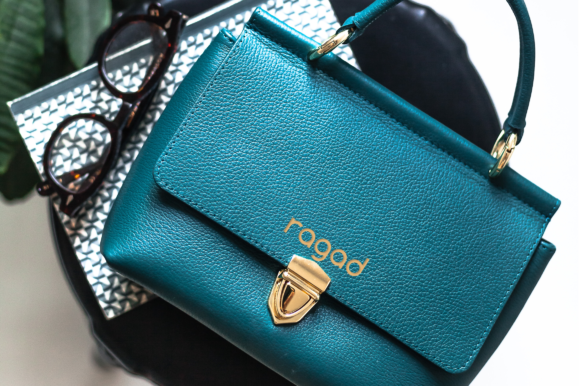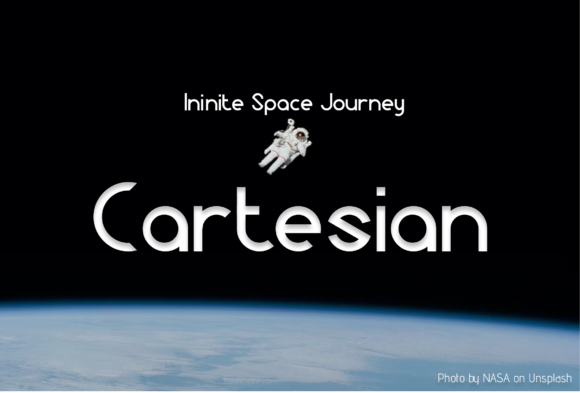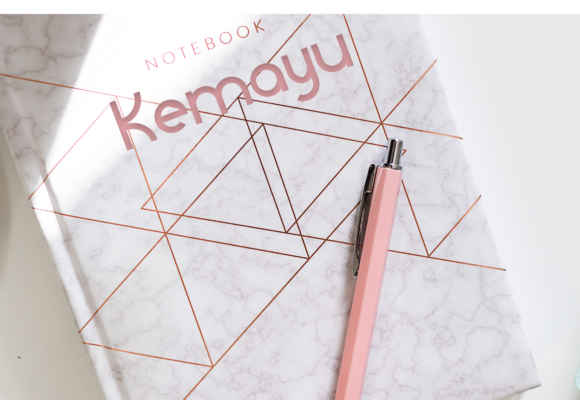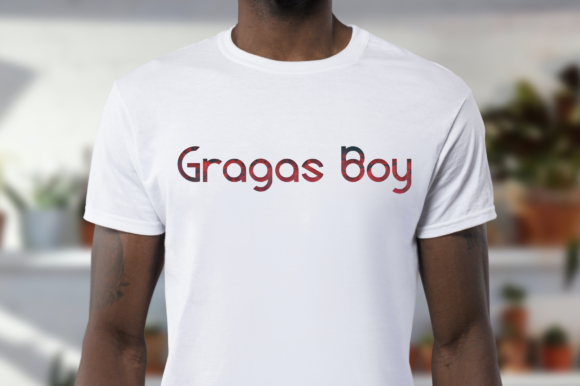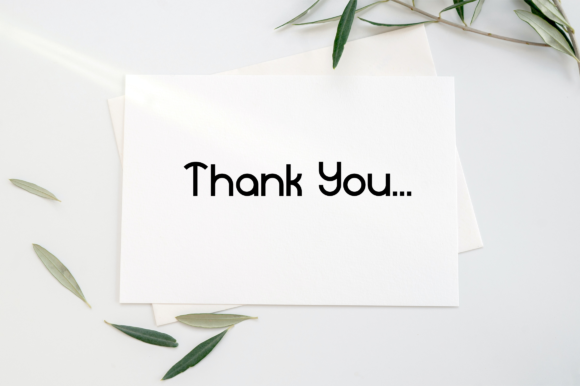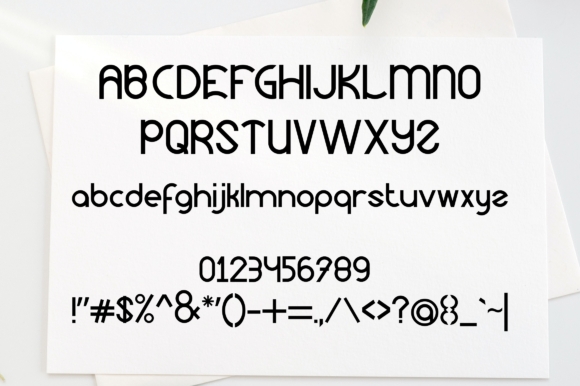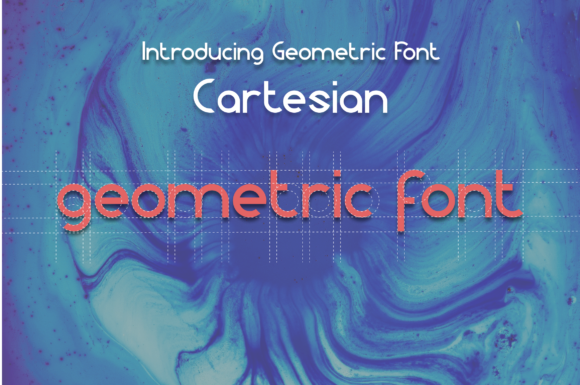
Discover the Elegance of Cartesian Font: A Geometric Marvel
In the realm of typography, the Cartesian Font stands out as a masterpiece inspired by the beauty of geometry. This typeface is not just a collection of letters; it’s an embodiment of modern design principles, combining accuracy, minimalism, and a touch of smoothness that appeals to designers and crafters alike. In this article, we’ll delve into the world of Cartesian Font, exploring its features, applications, and why it has become a go-to choice for professionals seeking a blend of strength and elegance in their designs.
The Genesis of Cartesian Font
Cartesian Font is a typeface that draws its inspiration from the geometric style, characterized by clean lines, precise angles, and a sense of mathematical accuracy. This font is designed to evoke a sense of space and modernity, making it a perfect fit for projects that require a contemporary and sleek look. The creator of Cartesian Font aimed to produce a typeface that not only pays homage to geometric principles but also offers versatility and aesthetic appeal.
Key Features of Cartesian Font
- Geometric Inspiration: The font’s design is rooted in geometric shapes, providing a clean and structured appearance.
- Smooth Touch: Despite its geometric inspiration, Cartesian Font boasts smooth lines and curves, adding a touch of elegance to any design.
- Versatility: This typeface is incredibly versatile, suitable for a wide range of applications from graphic design to game design, especially those with a space theme.
- Modern and Minimalist: Cartesian Font embodies a modern and minimalist design style, making it perfect for projects that require a fresh and uncluttered look.
- Strong yet Smooth: The font strikes a perfect balance between strength and smoothness, making it stand out in any design.
Applications of Cartesian Font
The versatility of Cartesian Font makes it suitable for a myriad of design projects. Here are some of the areas where this typeface shines:
- Branding Materials: Use Cartesian Font to give your brand a modern and sophisticated look.
- Game Design: Especially for games with a space theme, this font adds a futuristic and engaging feel.
- Logos: Create a lasting impression with a logo designed using Cartesian Font.
- Business Cards and Gift Cards: Add a touch of professionalism and elegance to your business or gift cards.
- T-Shirts and Merchandise: Cartesian Font makes for a great addition to any merchandise, giving it a modern appeal.
- Covers, Thumbnails, and Posters: Use this font to create eye-catching covers, thumbnails, and posters that stand out.
Why Choose Cartesian Font?
In a world where design trends are constantly evolving, Cartesian Font offers a timeless appeal that can elevate your projects to the next level. Its unique blend of geometric precision, smoothness, and modernity makes it an excellent choice for designers and crafters looking to imbue their work with a sense of sophistication and professionalism.
Cartesian Font is more than just a typeface; it’s a design statement that combines the beauty of geometry with the demands of modern design. Whether you’re working on a branding project, game design, or any other creative endeavor, Cartesian Font offers the versatility, elegance, and impact you need to make your work stand out. Explore the possibilities of Cartesian Font and discover how it can transform your designs into stunning visual experiences.